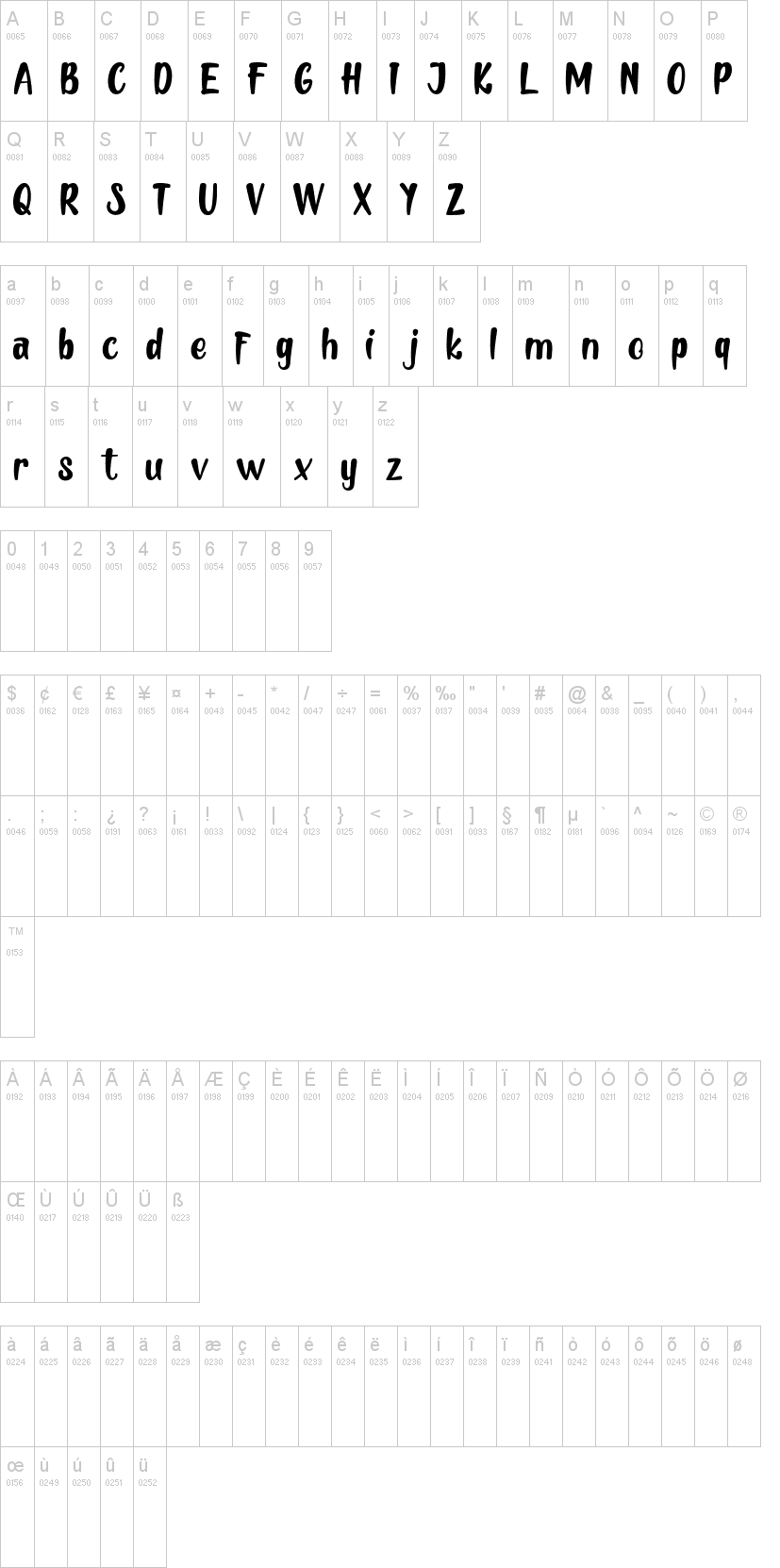
Mellow is a fancy comic typeface, cute and beautiful. Although It is also suitable for other purposes such as posters, shopping bags, headline, insignia, badge, t-shirt, logo, branding, cover book, badge, birthday invitation, greeting cards, etc.